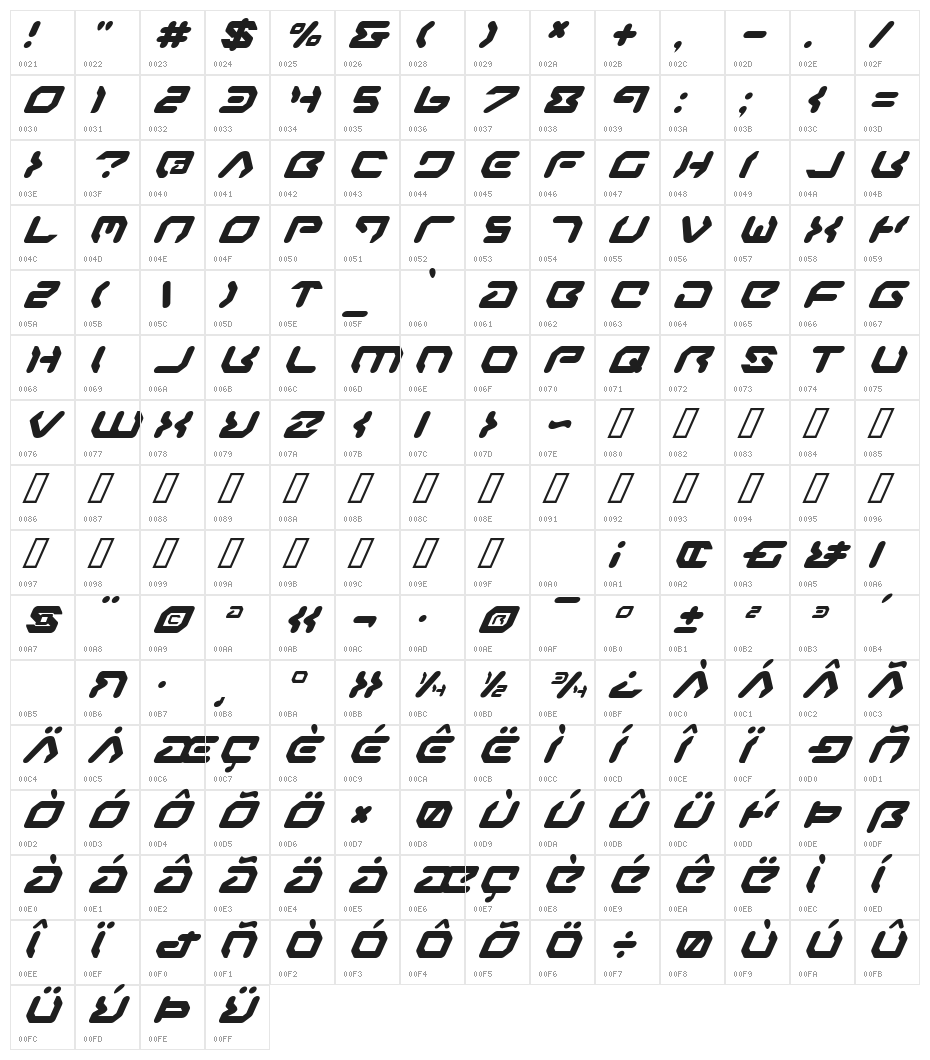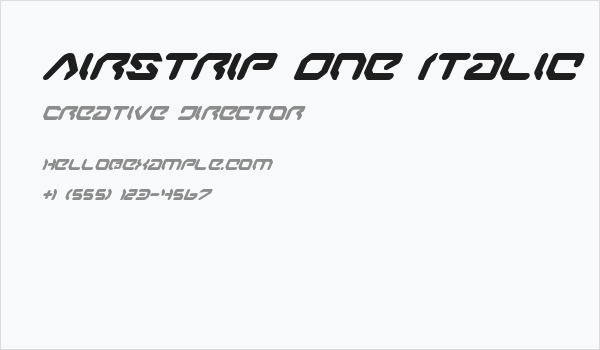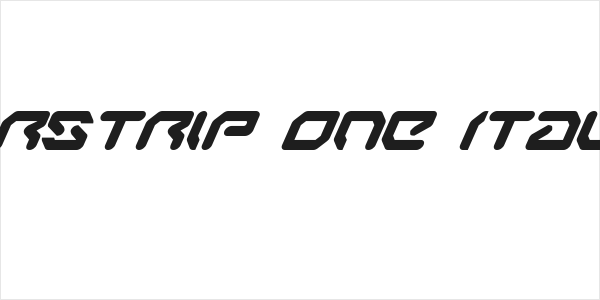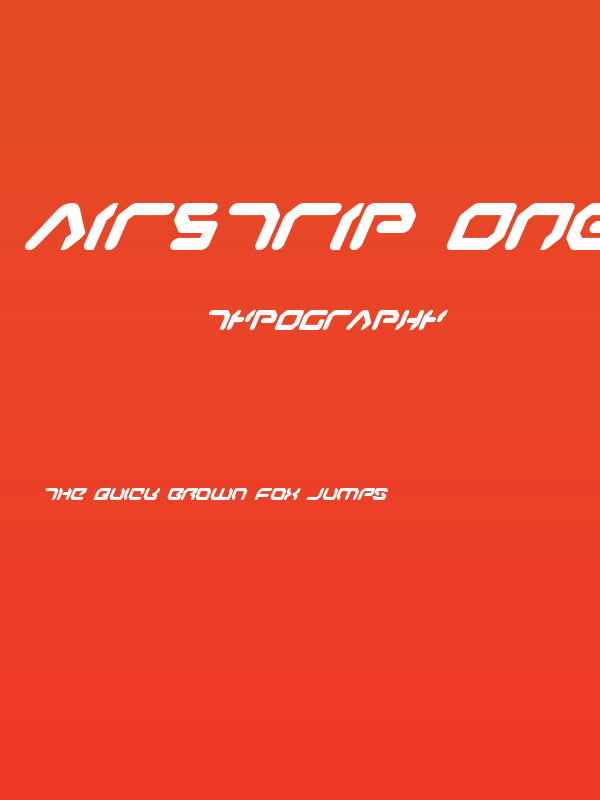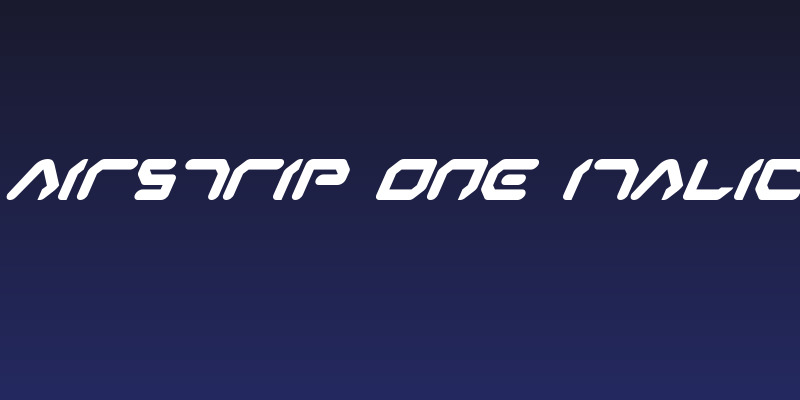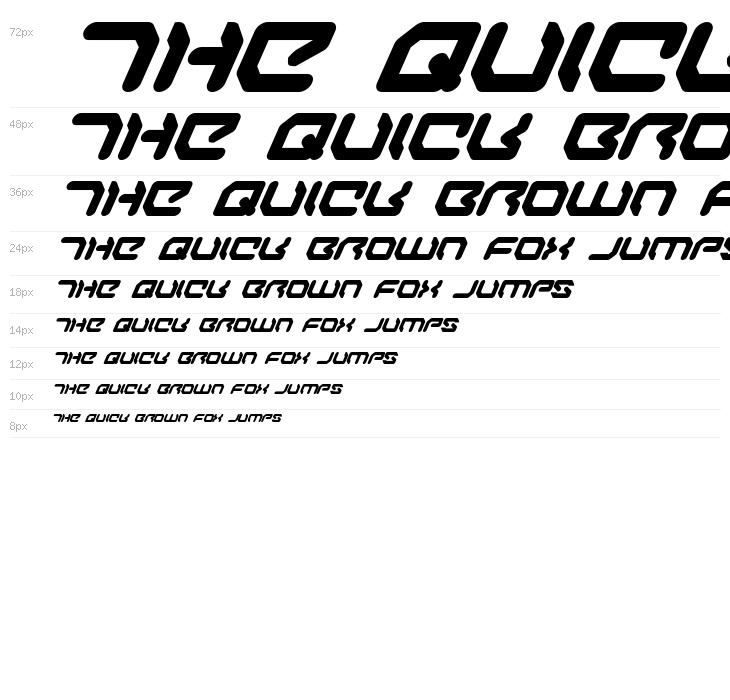
Airstrip One Italic Font
Airstrip One Italic Description
This font features a futuristic and dynamic design with a distinct italic slant, giving it a sense of motion and speed. The characters are bold and geometric, with sharp angles and a consistent stroke width that conveys a modern and tech-savvy aesthetic. The uppercase and lowercase letters maintain a uniform style, while the numerals and special characters complement the overall design with their angular forms. The font's unique appearance makes it stand out, ideal for projects that require a bold and innovative look.
Proposed ProjectsIdeal for technology branding, sci-fi themed designs, video game titles, and modern advertising campaigns.